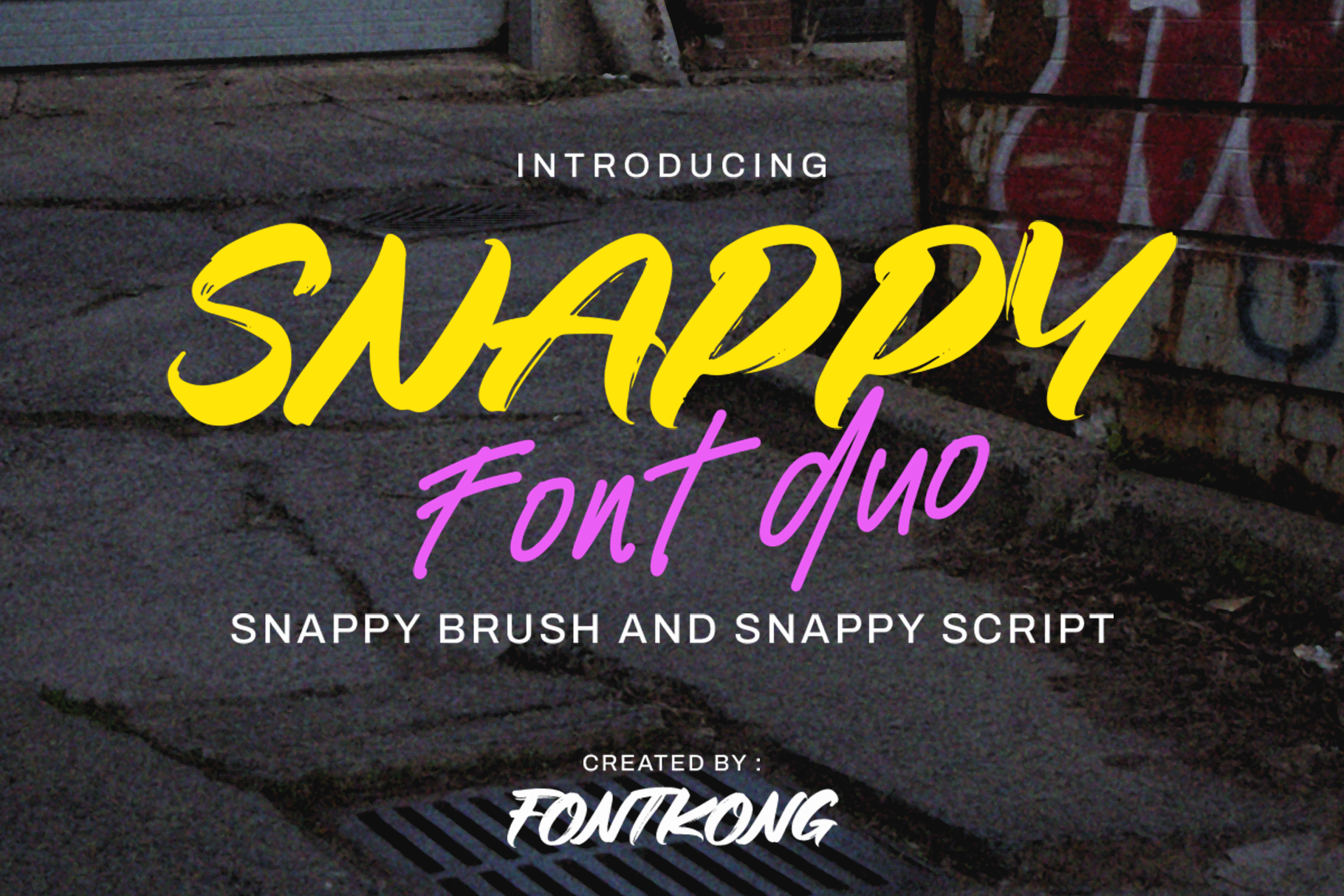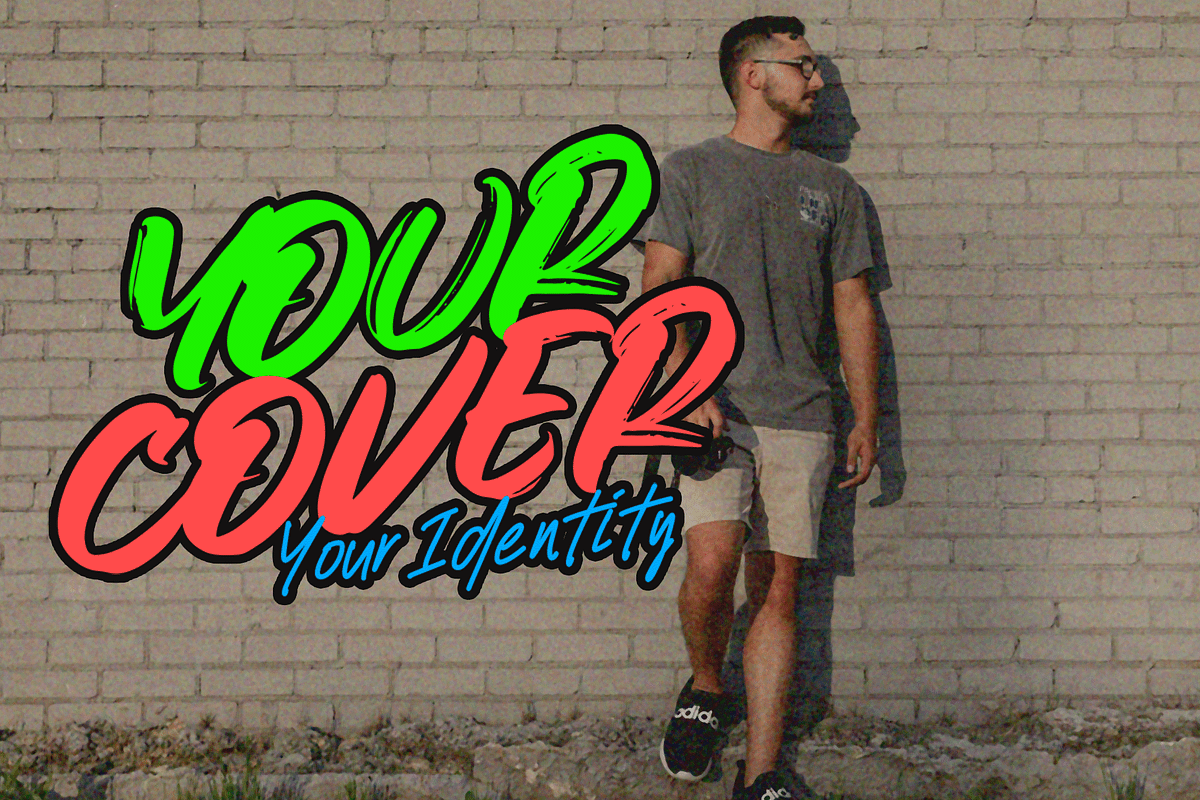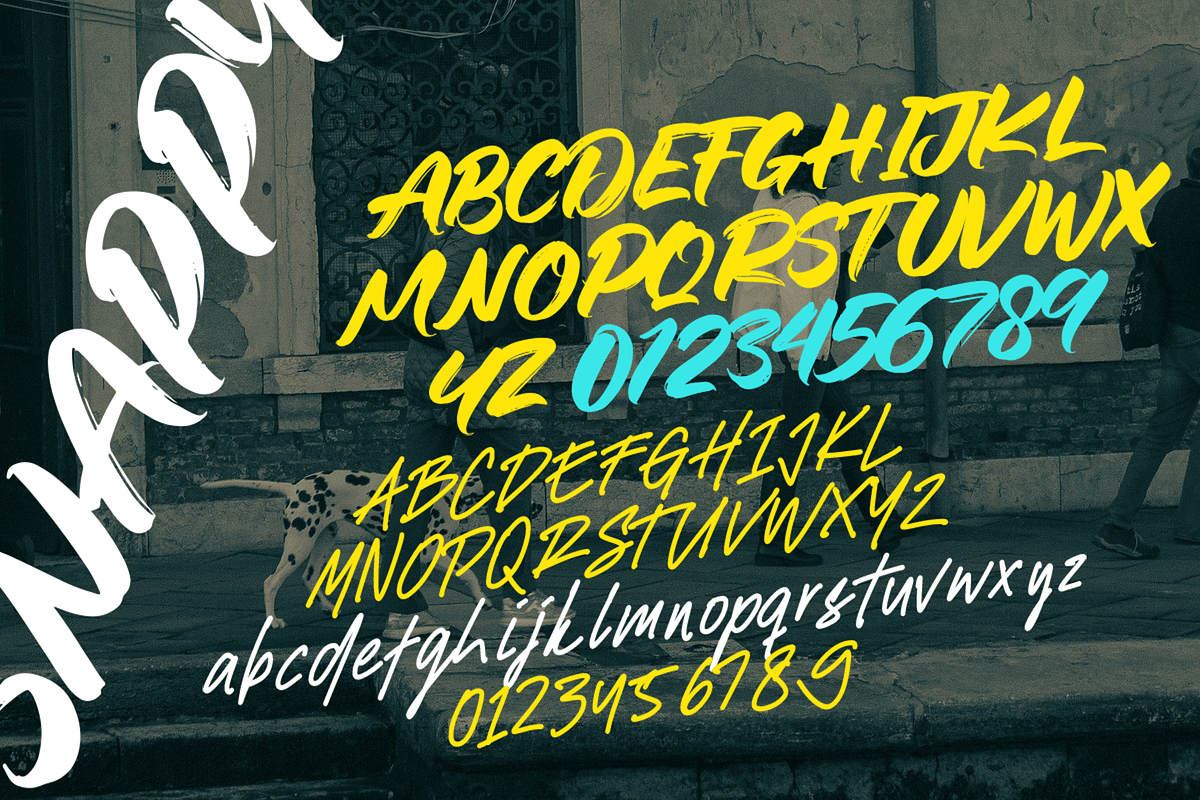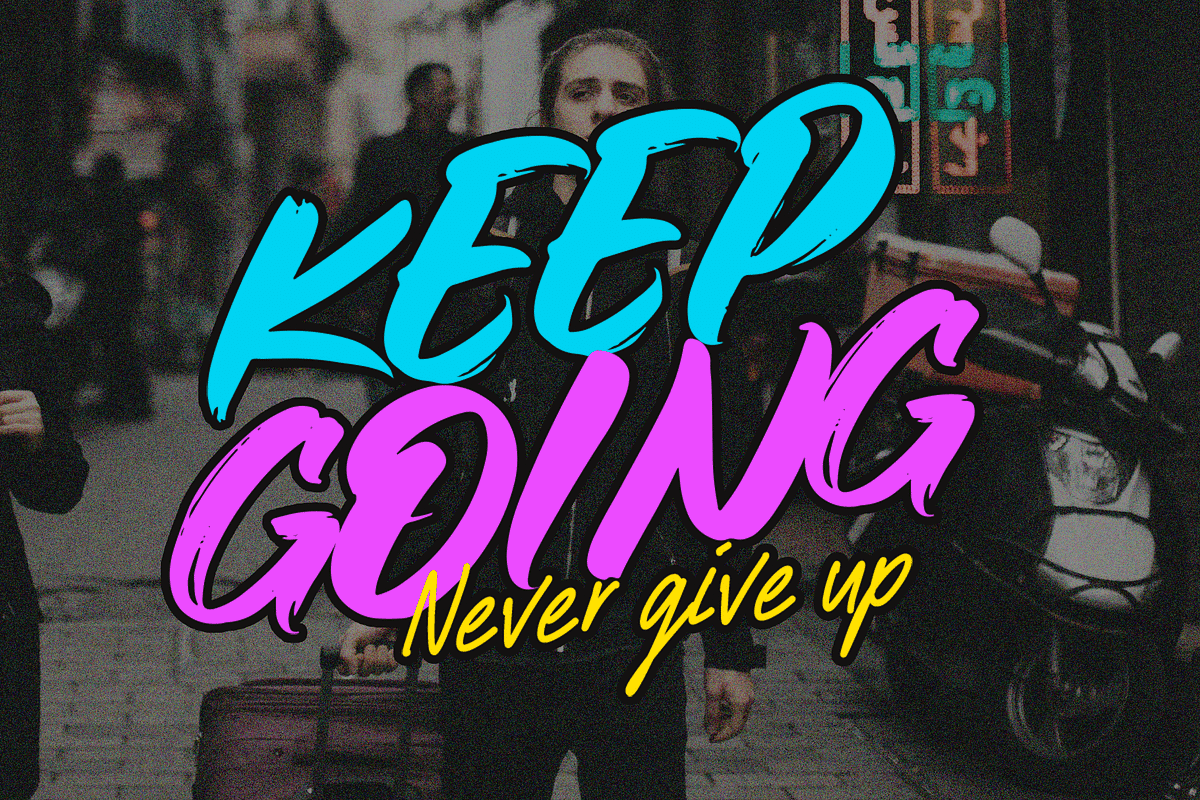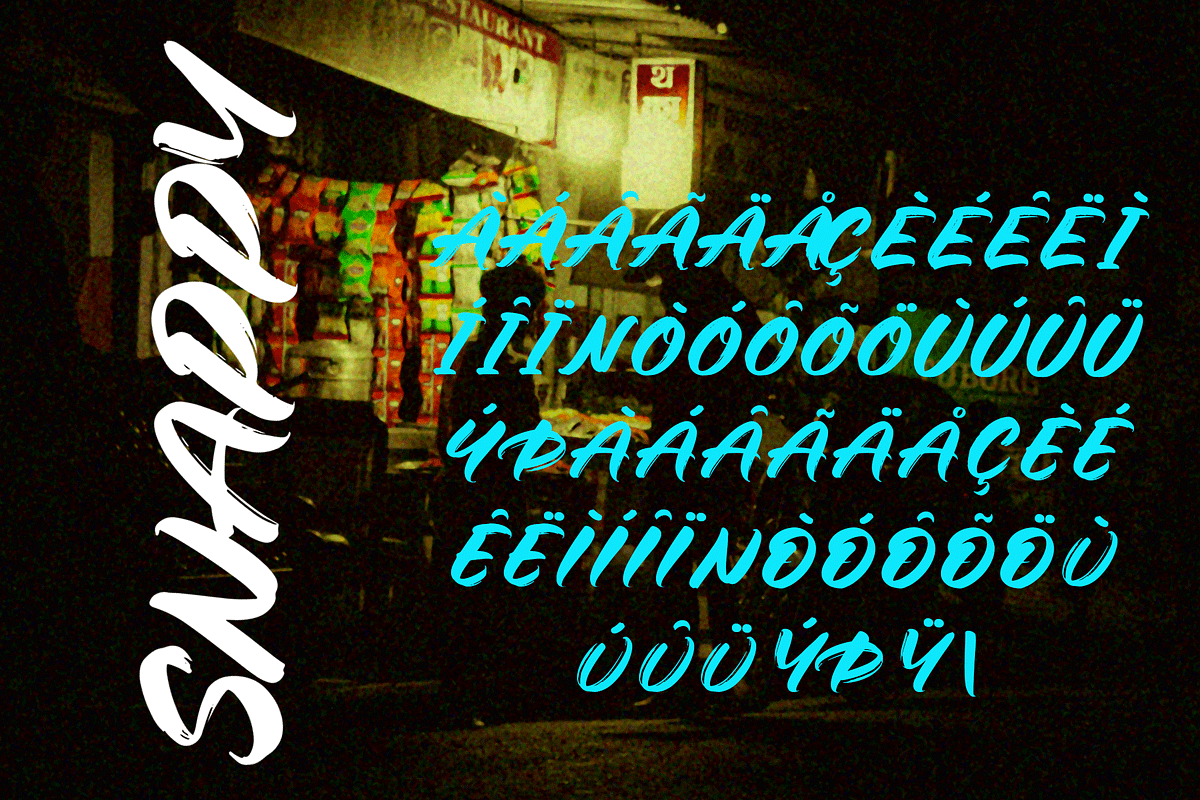
Snappy Font Duo – Brush and Script
Snappy Font Duo – Brush and Script Typeface
Introducing Snappy Font Duo, a vibrant combination of brush and script styles crafted to energize your creative projects. This dynamic duo blends the bold strokes of a modern brush font with the flowing elegance of a handwritten script, offering endless possibilities for design versatility.
Perfect for branding, social media graphics, packaging, merchandise, and creative logos, Snappy brings a bold yet personal feel to every project. With full uppercase, lowercase, alternates, ligatures, numerals, punctuation, and multilingual support, it’s ready to snap your designs into life.
Infuse your work with expressive motion and stylish personality with the Snappy Font Duo!